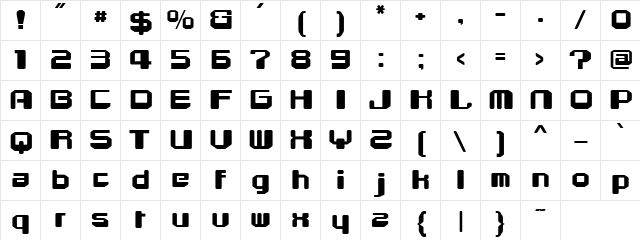
X Angle 90 Regular
Design Context for X Angle 90 Typeface
X Angle 90 is a composed and adaptable typeface that performs quietly and consistently across a wide range of design contexts.